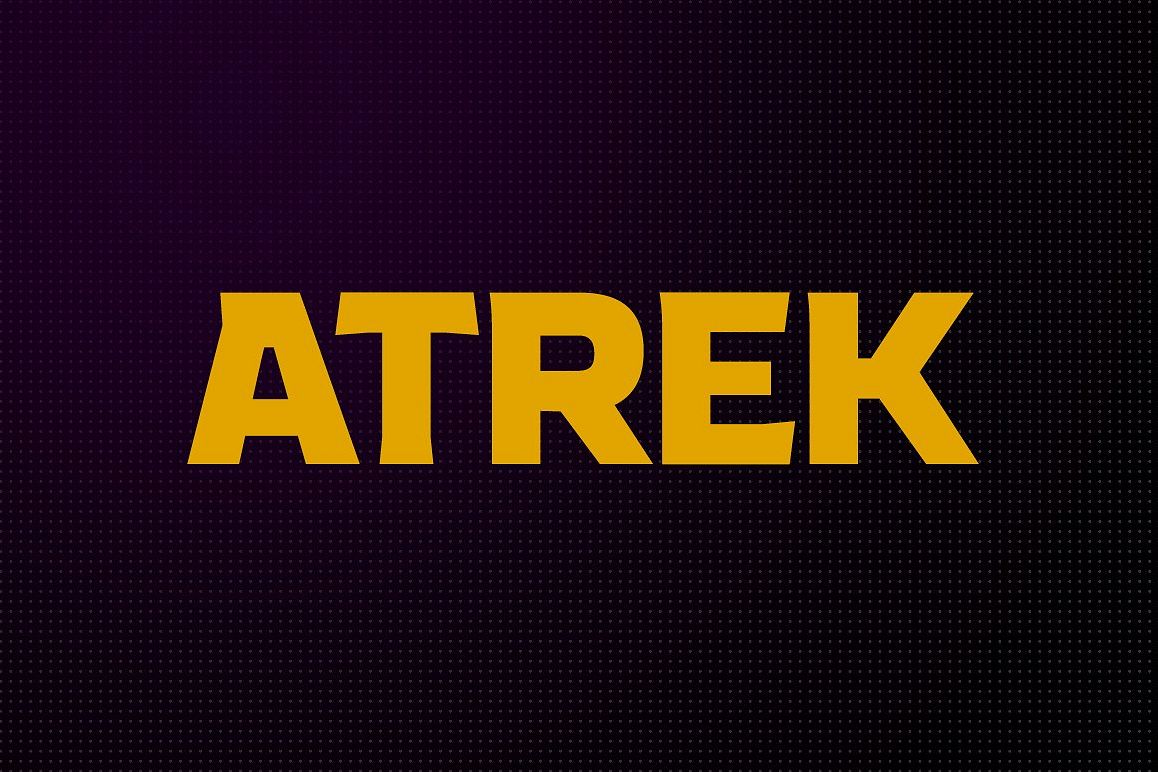
Atrek
This package contains 3 versions of Atrek, namely Atrek Bold, Atrek Inline and Atrek Cutline. Each with their own uniqueness and approachable strength.This font pairs very nicely with condensed sans like Tungsten and Flama. Serifed italic like Sabon and Farnham also work extremely well.Follow me to be notified when other great fonts are released!